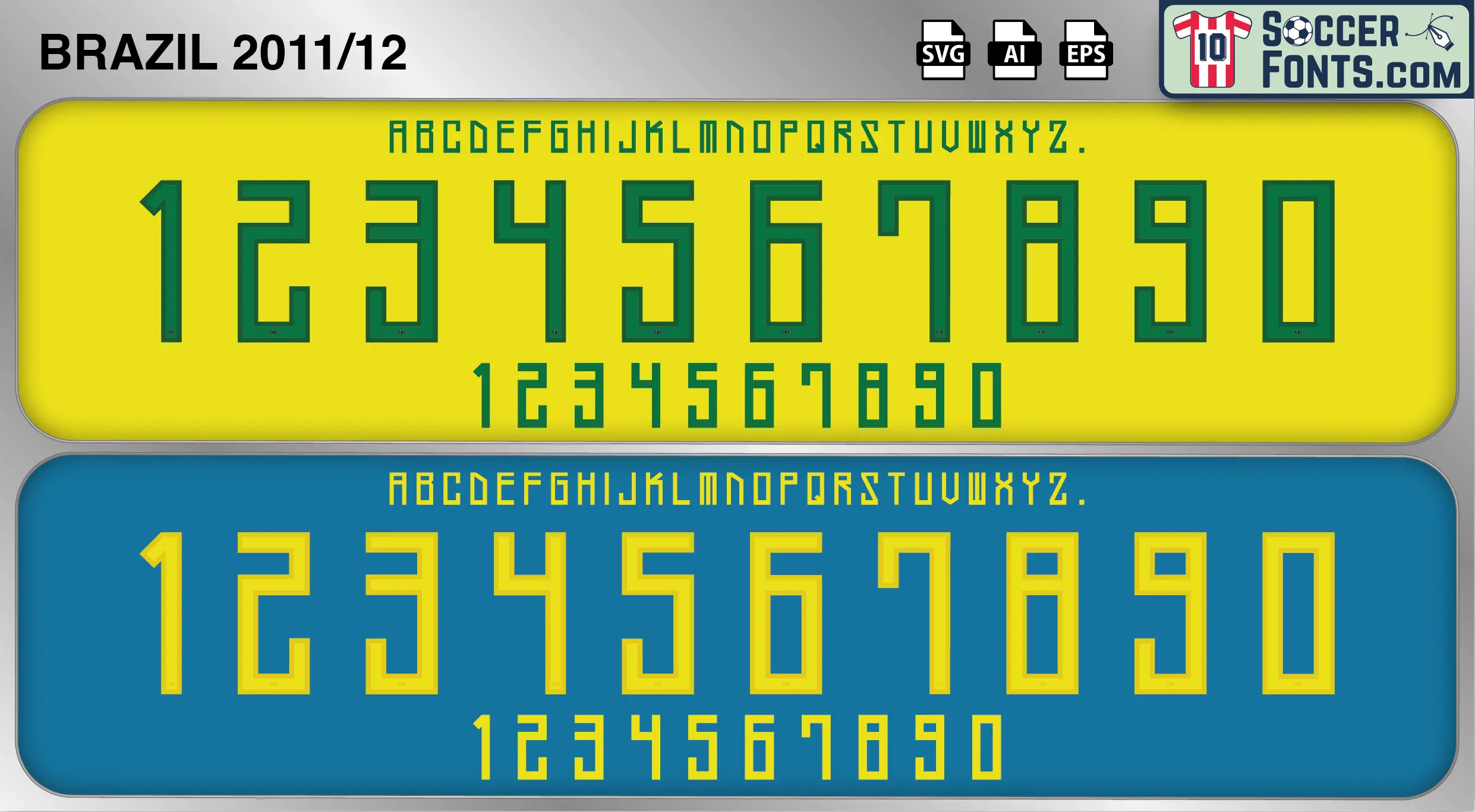
Brazil 2011-12 Font
The Brazil 2011-12 font is an editable soccer jersey lettering design in vector format inspired by the Brazil kit style used during the 2011-12 football seasons. This football font artwork is prepared for football shirt recreations, custom jersey projects, football kit mockups and sports graphic design workflows.
The 2011-12 era continued Brazil’s preparation for the 2014 FIFA World Cup and featured the emergence of several young players who would become central figures in the national team. During this period, Brazil competed in the 2011 Copa América and continued rebuilding under Mano Menezes following the previous World Cup cycle. The squad featured players such as Neymar, Thiago Silva, Dani Alves, David Luiz, Lucas Moura and Robinho, combining youthful talent with experienced internationals. Neymar in particular became one of the most talked-about footballers in the world, attracting global attention as the future face of Brazilian football.
The Brazil 2011-12 font became associated with the rise of a new generation and the growing anticipation surrounding the 2014 World Cup in Brazil. Brazil shirts from this era remain especially recognizable because of their connection with Neymar’s early international career and the excitement surrounding a squad filled with emerging stars. The Brazil 2011-12 font reflects a period of optimism and transition within Brazilian football as supporters looked ahead to a new era while maintaining the traditions and football culture that have made the national team one of the most iconic institutions in world football.